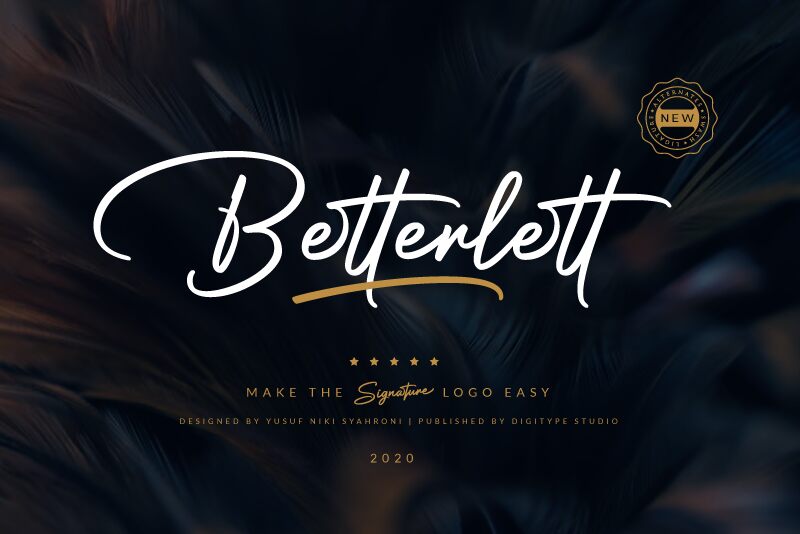
Betterlett is a stunning semi-light handwritten signature font that will elevate your design projects to new heights. Created by the talented designers at Digitype Studio, this font is perfect for adding a touch of elegance and sophistication to your work. Whether you're designing invitations, logos, or social media graphics, Betterlett's unique style will make your project stand out from the crowd. Its semi-light weight makes it perfect for use in headlines and body text alike. So why settle for ordinary fonts when you can add a touch of class with Betterlett? Try it today and see the difference it can make!
Betterlett
Yusuf Niki Syahroni